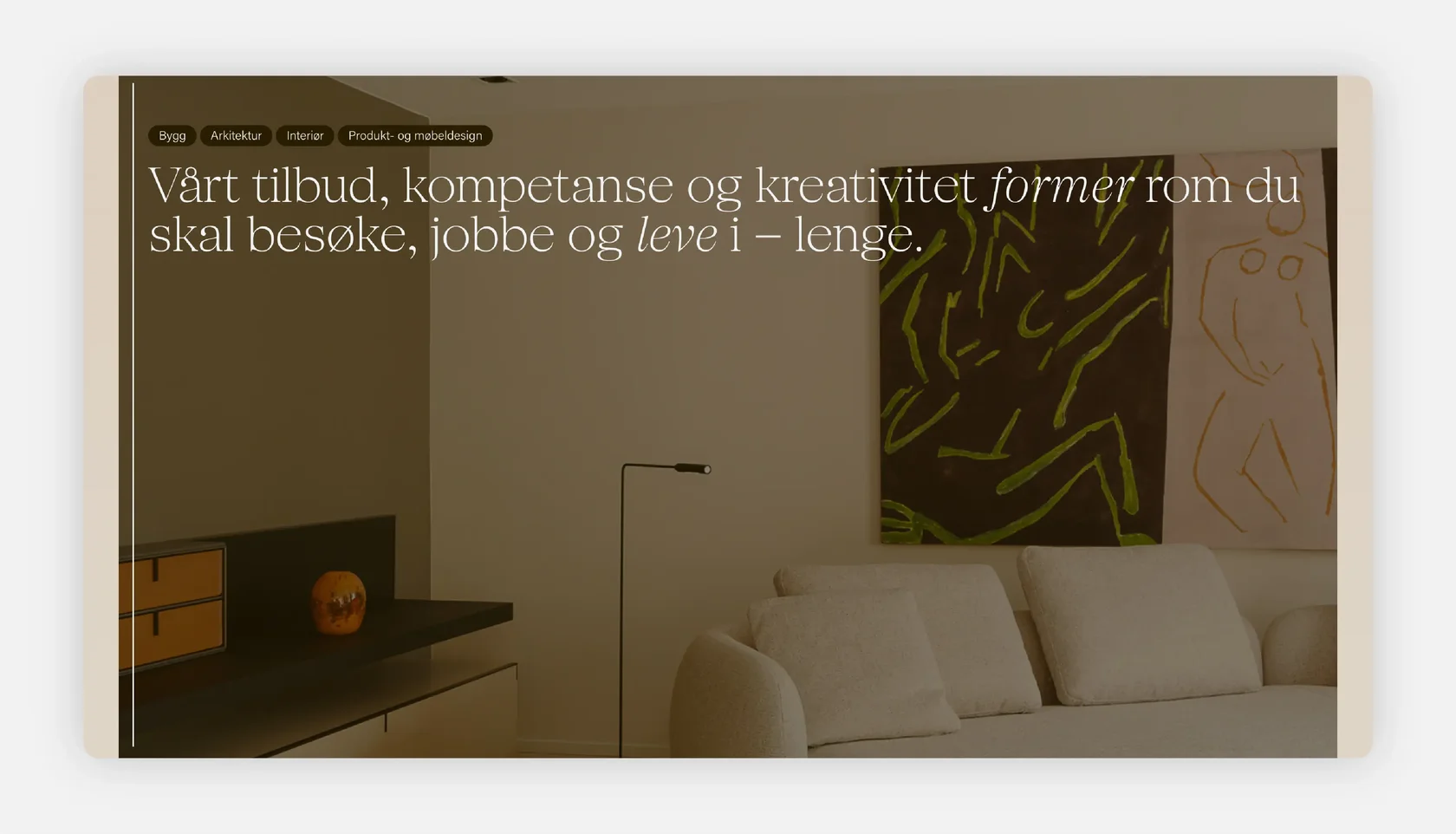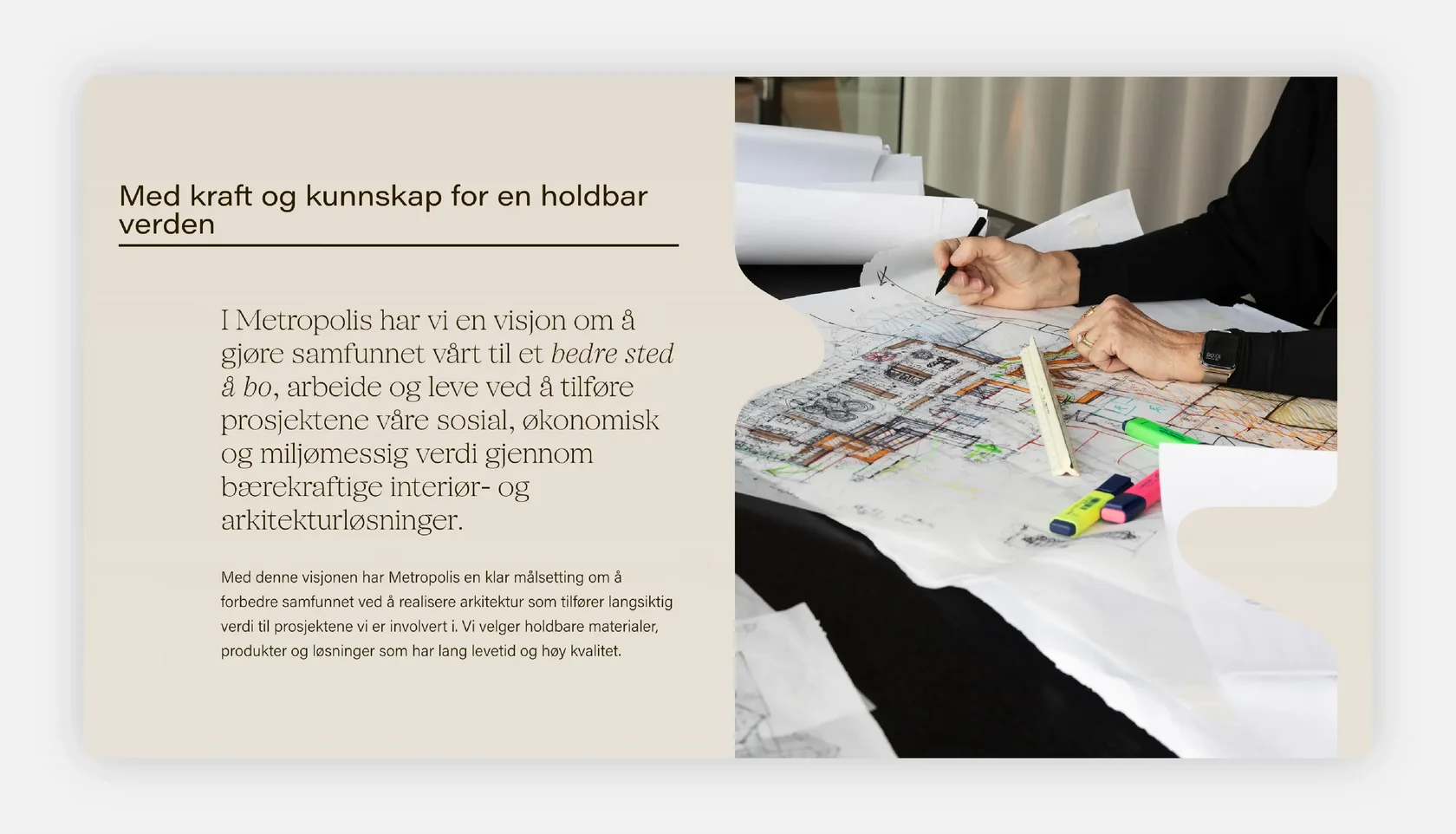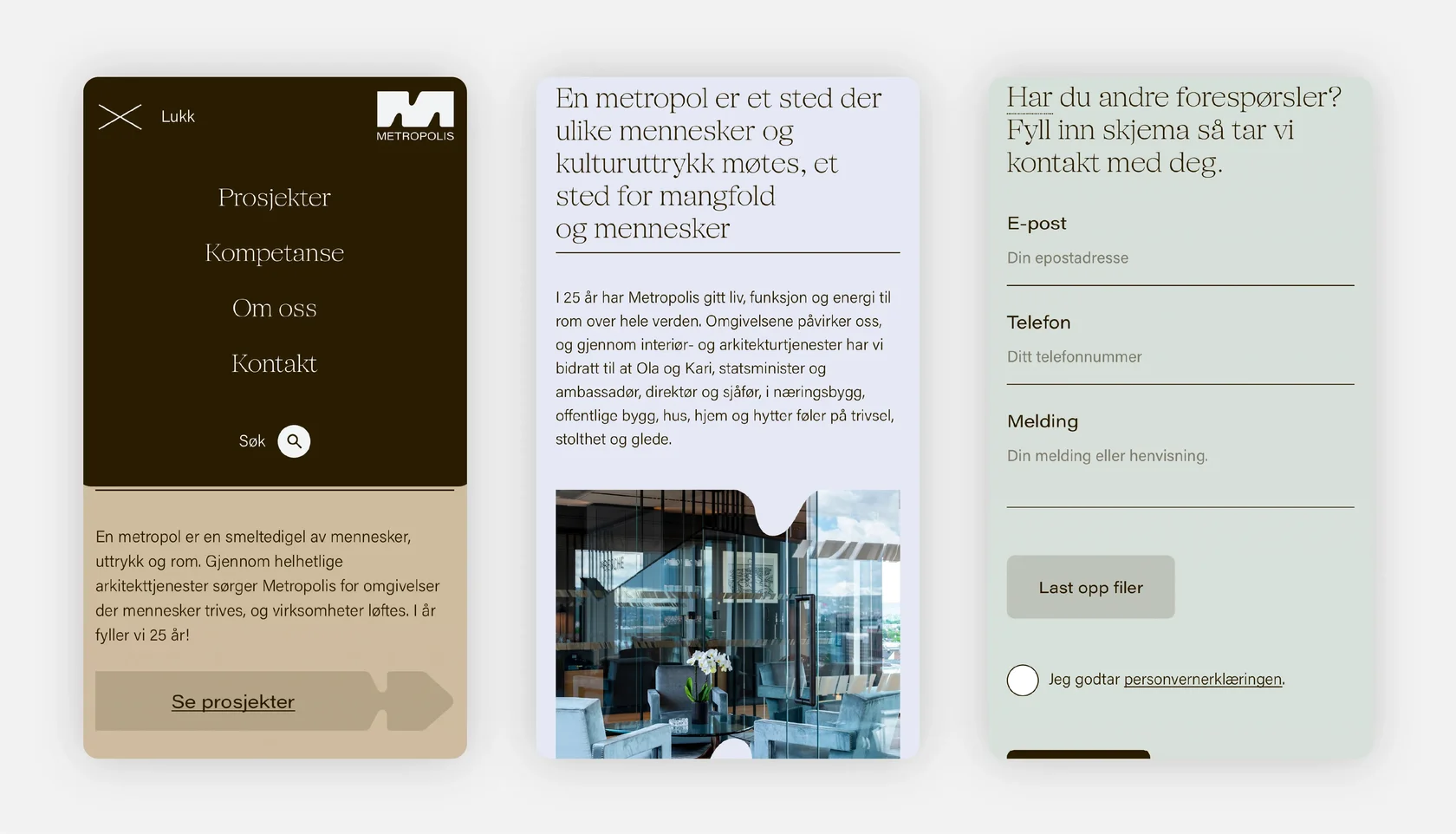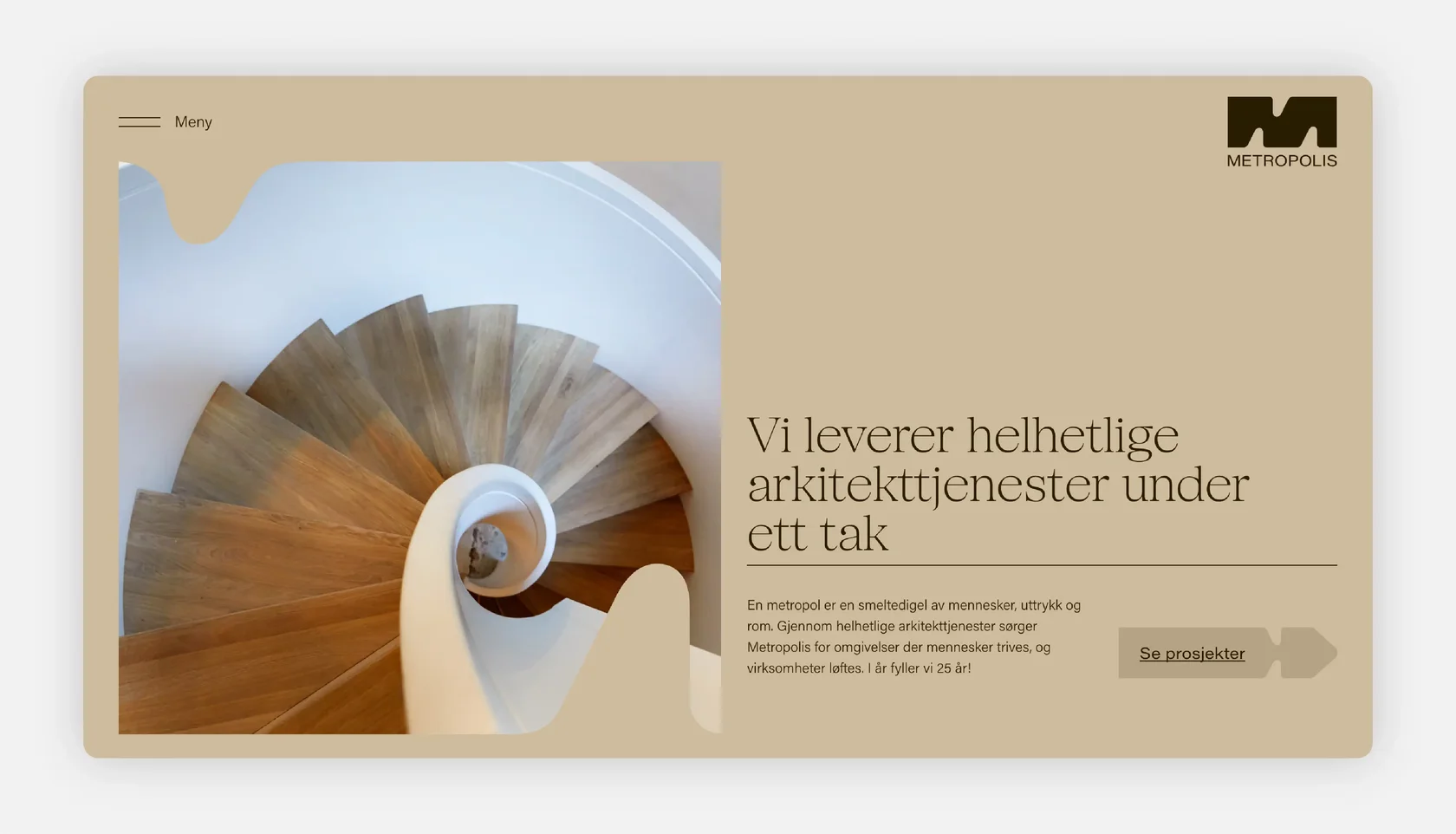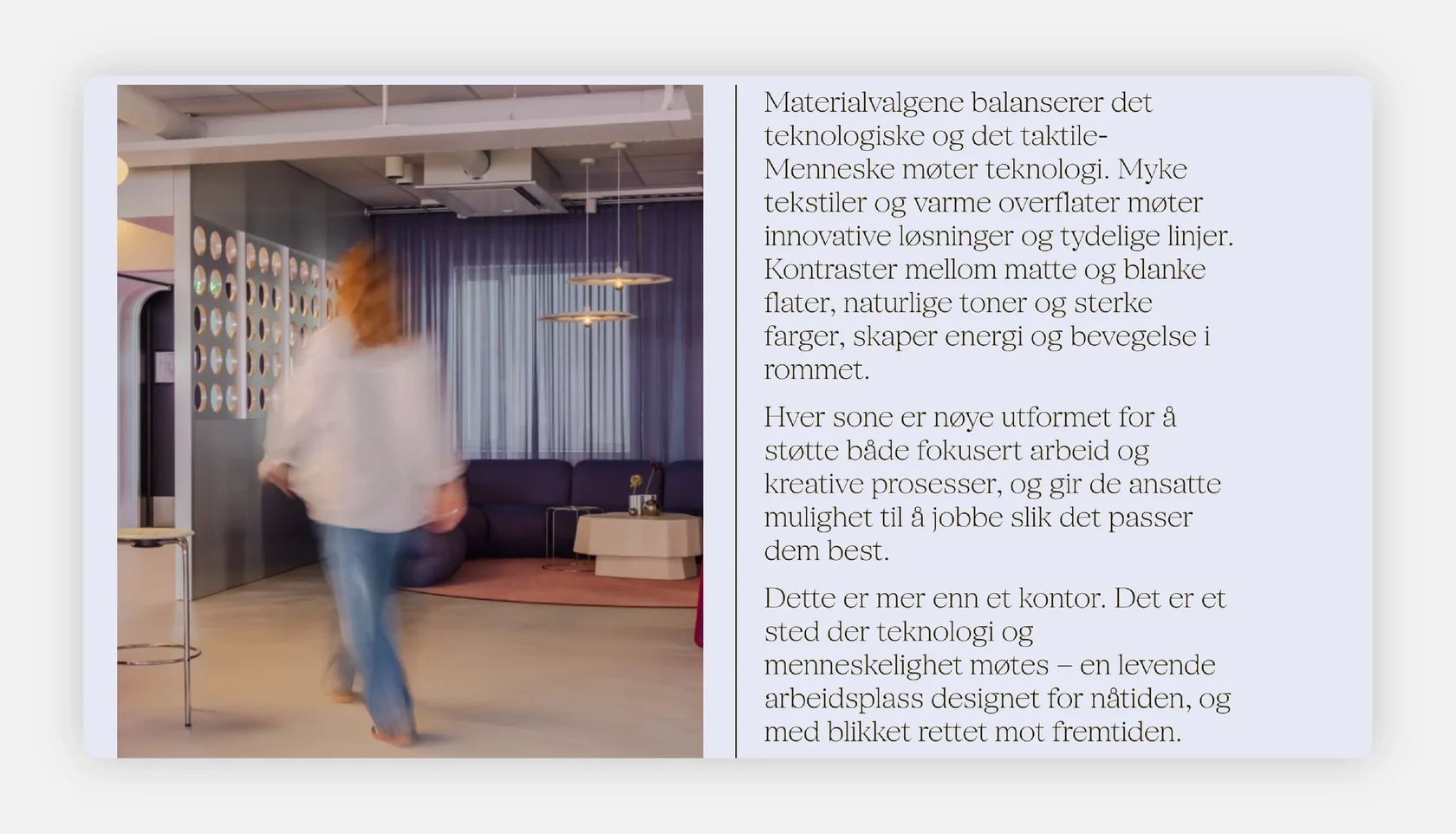
Metropolis — Urban Design with a Human Touch
Font: SFT Schrifted Serif (Display ExtraLight, Display ExtraLight Italic).
Use case: Website design.
About the Project:
Metropolis is a Norwegian architectural studio known for creating inclusive, people-oriented environments. Their website combines clarity and warmth to communicate their mission of improving urban life through thoughtful design. SFT Schrifted Serif is used for key headlines throughout the site, setting a tone that is both confident and approachable. In combination with Acumin, it creates a harmonious typographic system where expressive serif contrasts with a clean, neutral sans.
The serif’s distinct personality adds a sense of refinement and structure, echoing the studio’s values of precision, sustainability, and long-term impact in the built environment.
Why SFT Schrifted Serif?
The choice of SFT Schrifted Serif enhances Metropolis’s visual identity with a typeface that feels grounded and articulate. Its soft shapes and dynamic details mirror the human-centered ethos of the studio, while maintaining the architectural clarity needed in a professional setting. Paired with a modern sans, it balances expressiveness and function — a typographic reflection of Metropolis’s dual focus on aesthetics and livability.